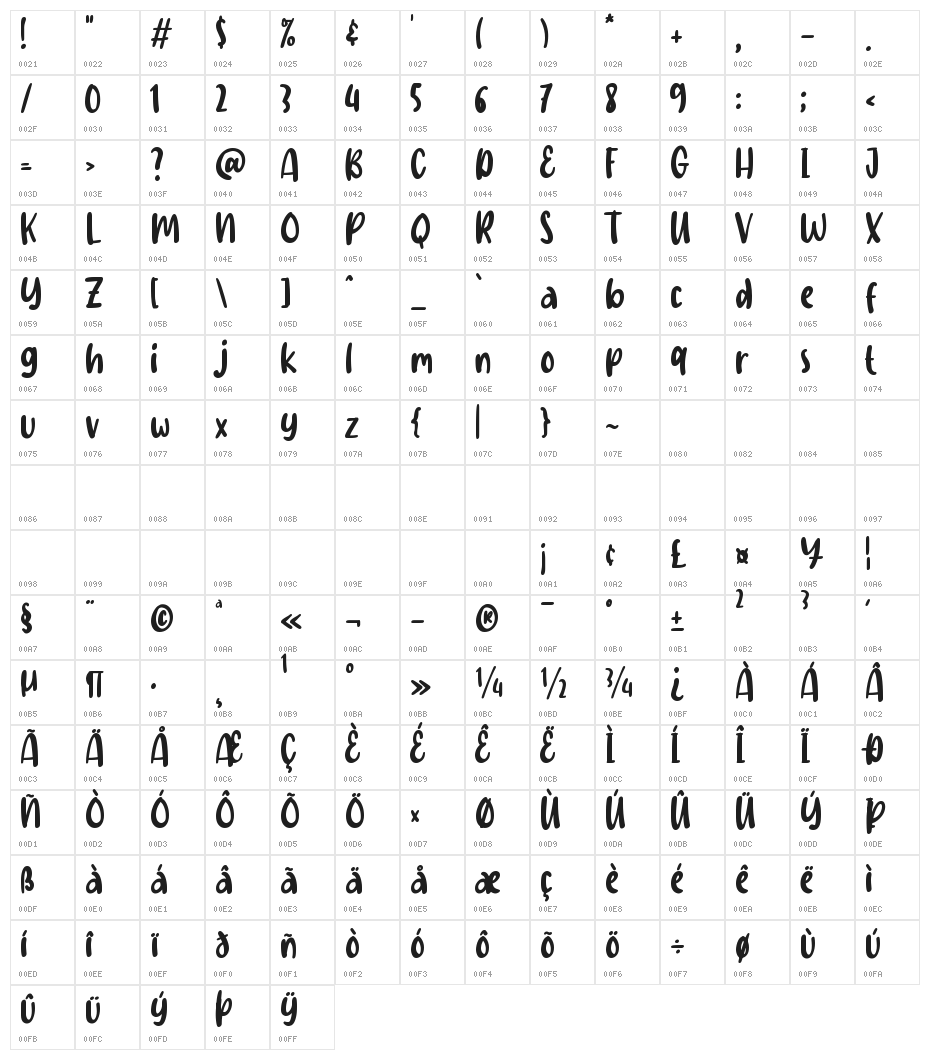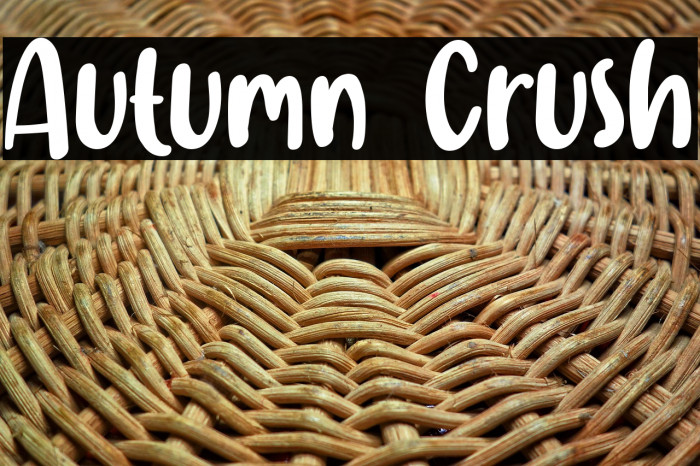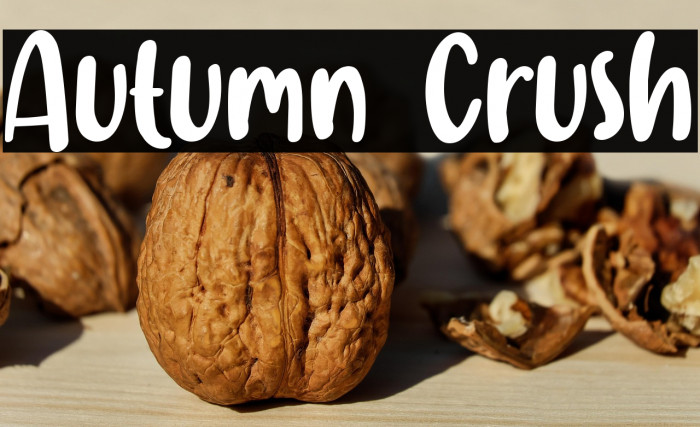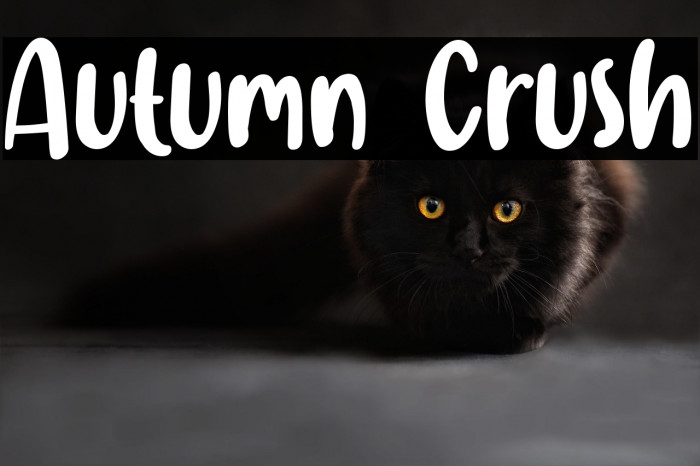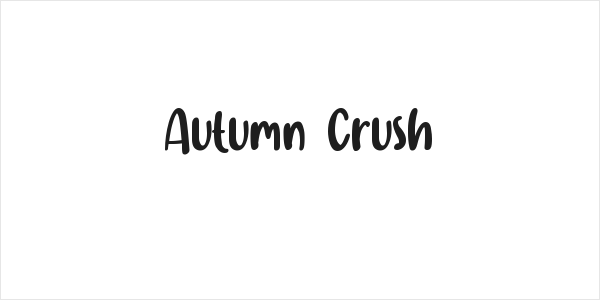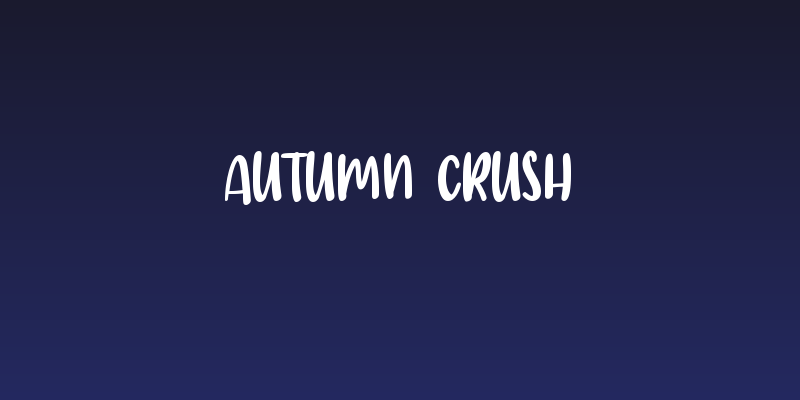
Autumn Crush Font
Autumn Crush Description
A playful, bold handwritten typeface with rounded edges and a casual, organic flow. The strokes are thick and consistent, giving it a friendly and approachable appearance. The characters are slightly irregular, enhancing the hand-drawn feel.
| Overall Style | Playful, Casual, Handwritten |
| Use Case | Headlines, Logos, Posters, Informal Invitations |
| Proposed Projects | Greeting cards, posters, childrenΓ’β¬β’s books, social media graphics, branding for creative businesses. |